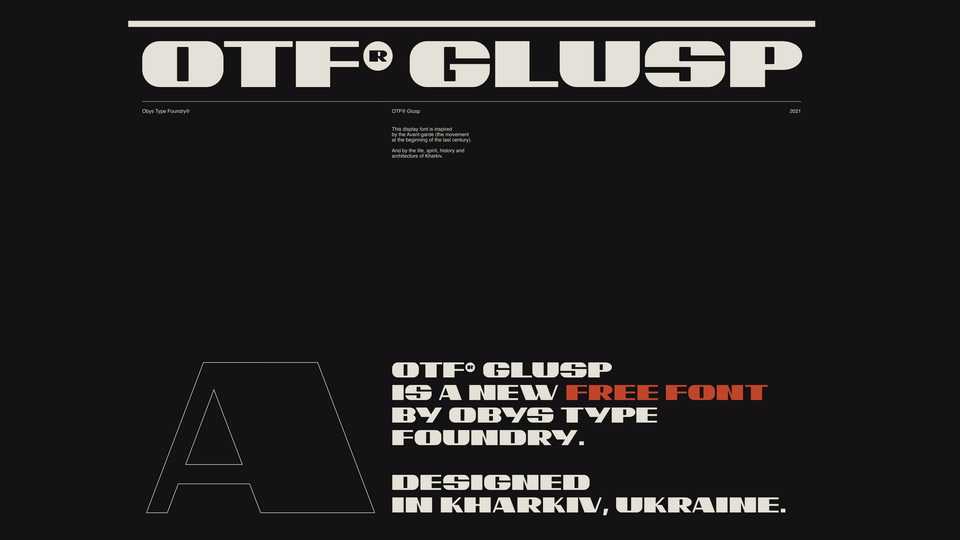
Download OTF® Glusp font, a display typeface inspired by the Avant-garde (the movement at the beginning of the last century). And by the streets of Kharkiv.
Designer: Obys Type Foundry